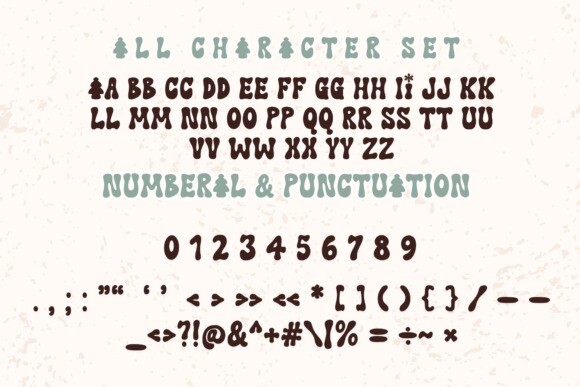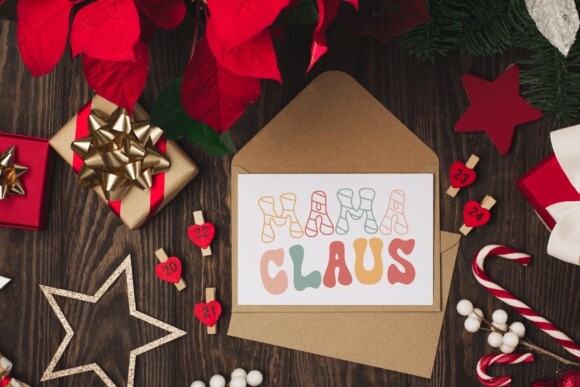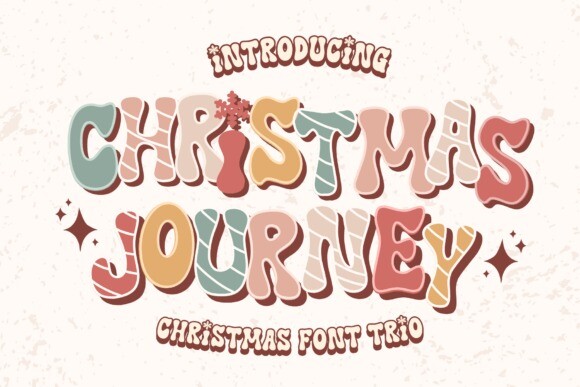
Christmas Journey Font Trio
Christmas Journey Font, a delightful three-in-one font oozing charm and genuineness. Let its playful characteristics flourish in your cherished projects – be they energetic blog posts, eye-catching logos, distinctive branding or persuasive ads. Christmas Journey is your ideal companion for crafting heartwarming invitations, delightful greetings cards, meticulous planners, memorable photo albums, and enchanting decorations. Simply infuse this font into your design aspirations and watch the magic unfold. Experience the allure of Christmas Journey, and savor its transformative effect on your creative endeavors.